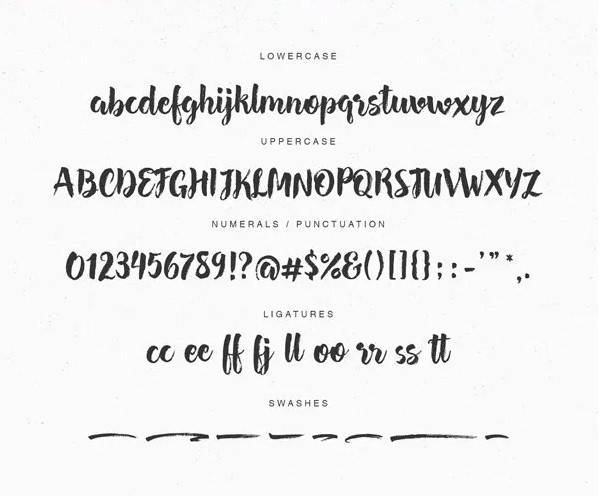
Hensa Brush Font
Hensa Brush Font is one of the most elegant typefaces. This is present inside google fonts and it is also known as the lemon Tuesday font.
Style Of Hensa Brush Font Free